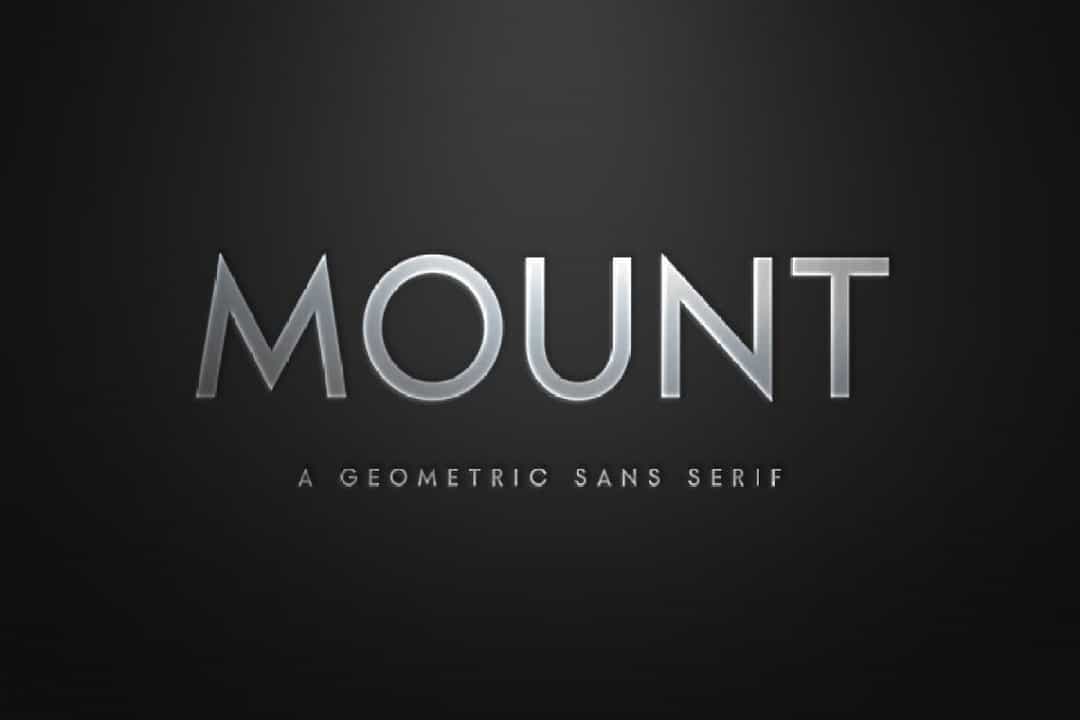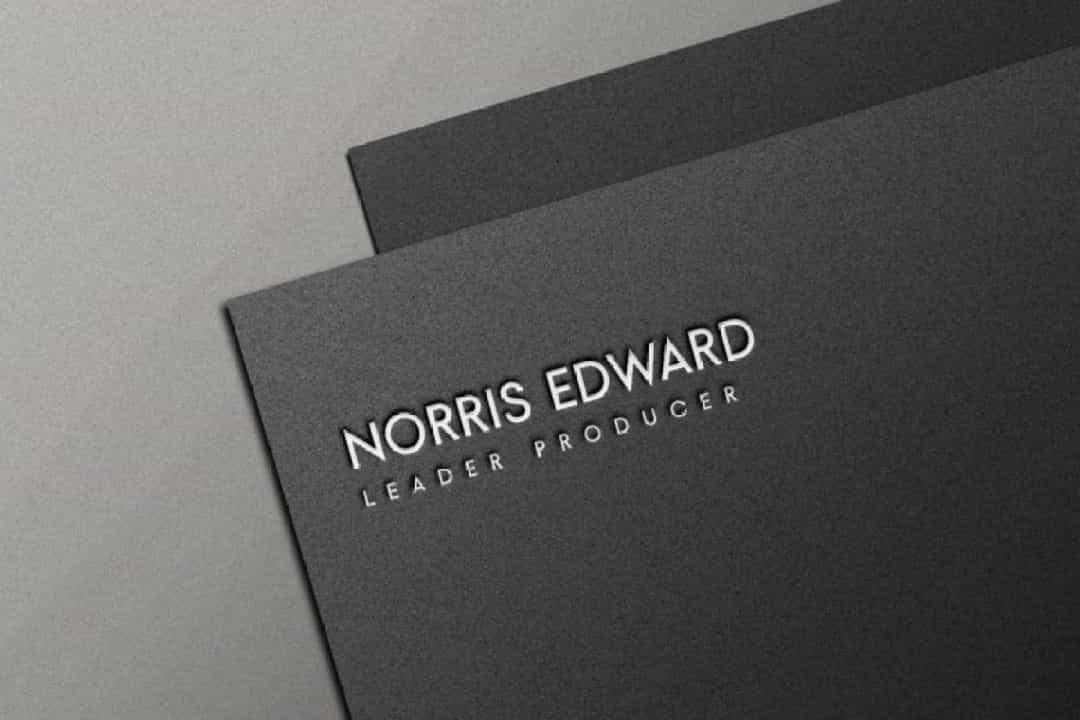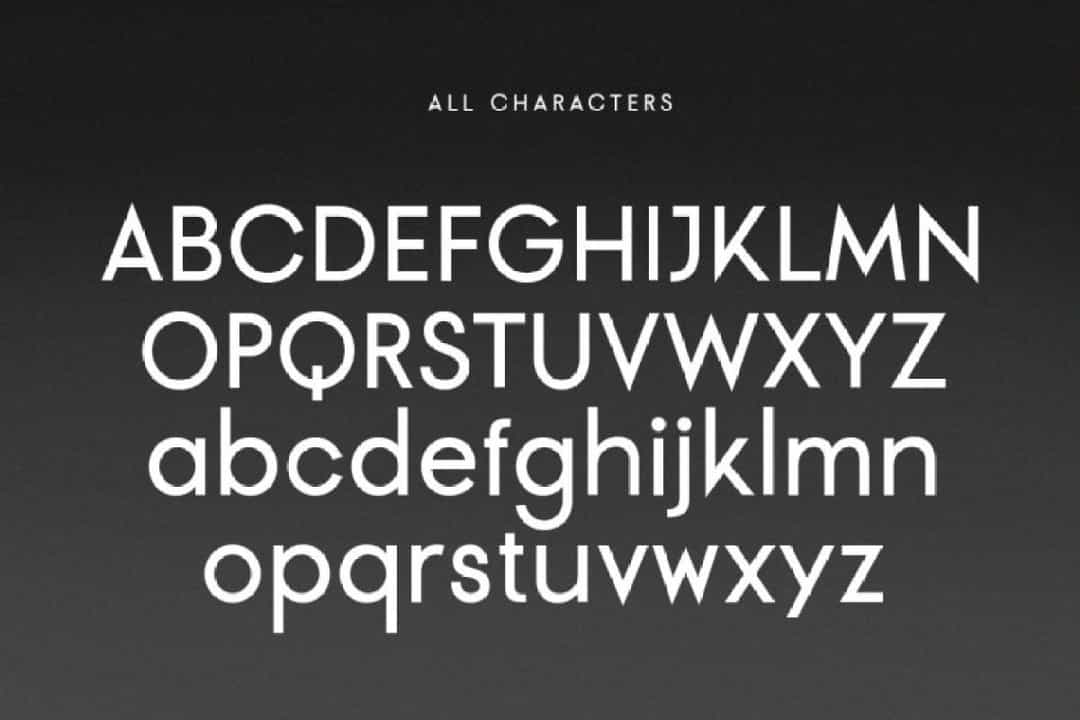
Mount is a stylish and versatile sans-serif font designed to be clear and easy-to-read, featuring clean lines and balanced proportions for an elegant yet modern aesthetic. Perfect for applications ranging from printing materials to digital interfaces, Mount offers clear communication through modern designs.